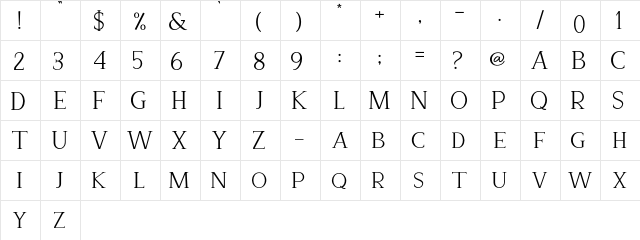
Recoba Regular Font Preview
Recoba Regular
Recoba Regular Font Details
| Foundry | Khurasan |
| Designer | Khurasan |
Design Context for Recoba Typeface
Recoba offers clean, dependable letterforms without strong stylistic allegiance, making it a practical choice for designers who need flexibility.